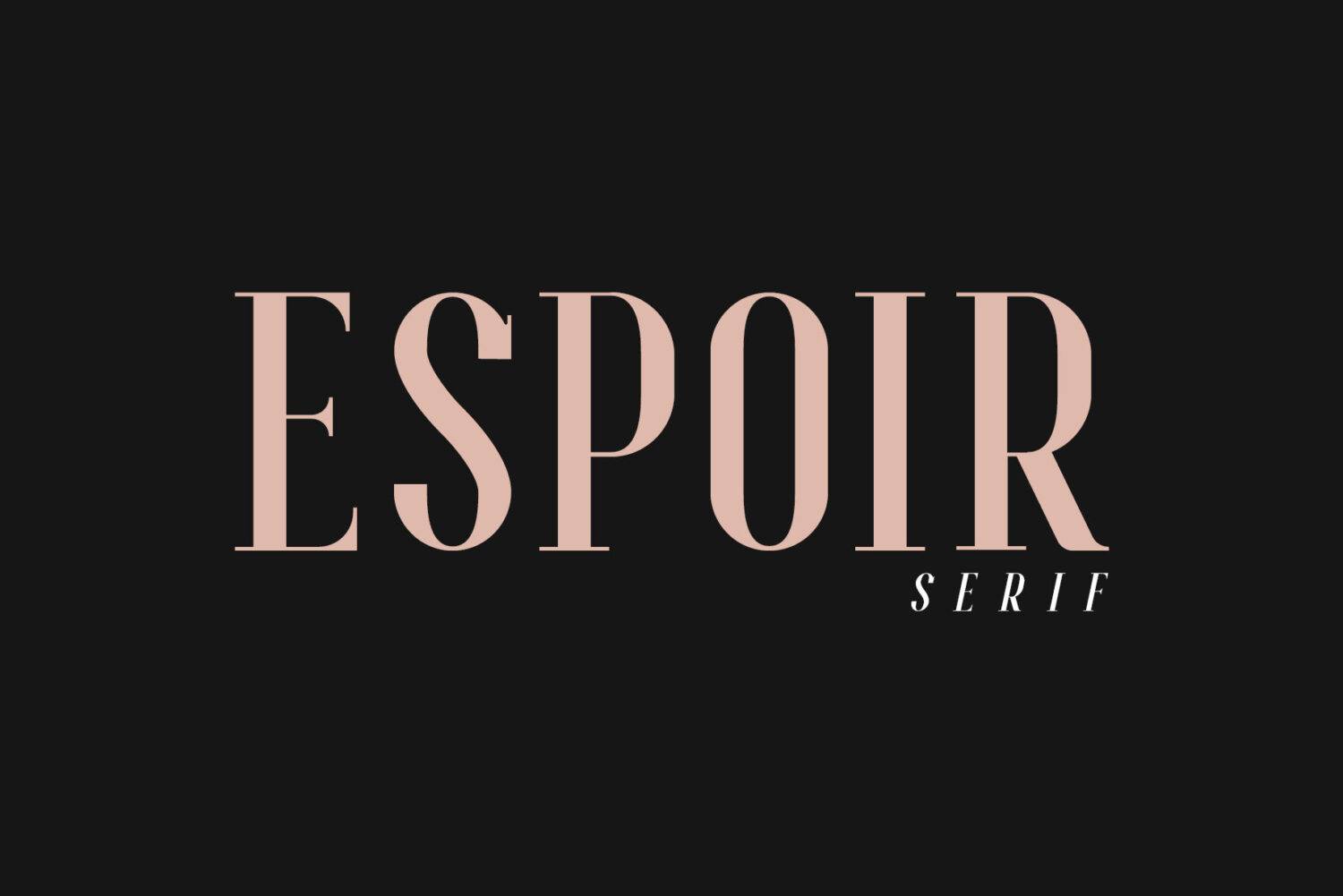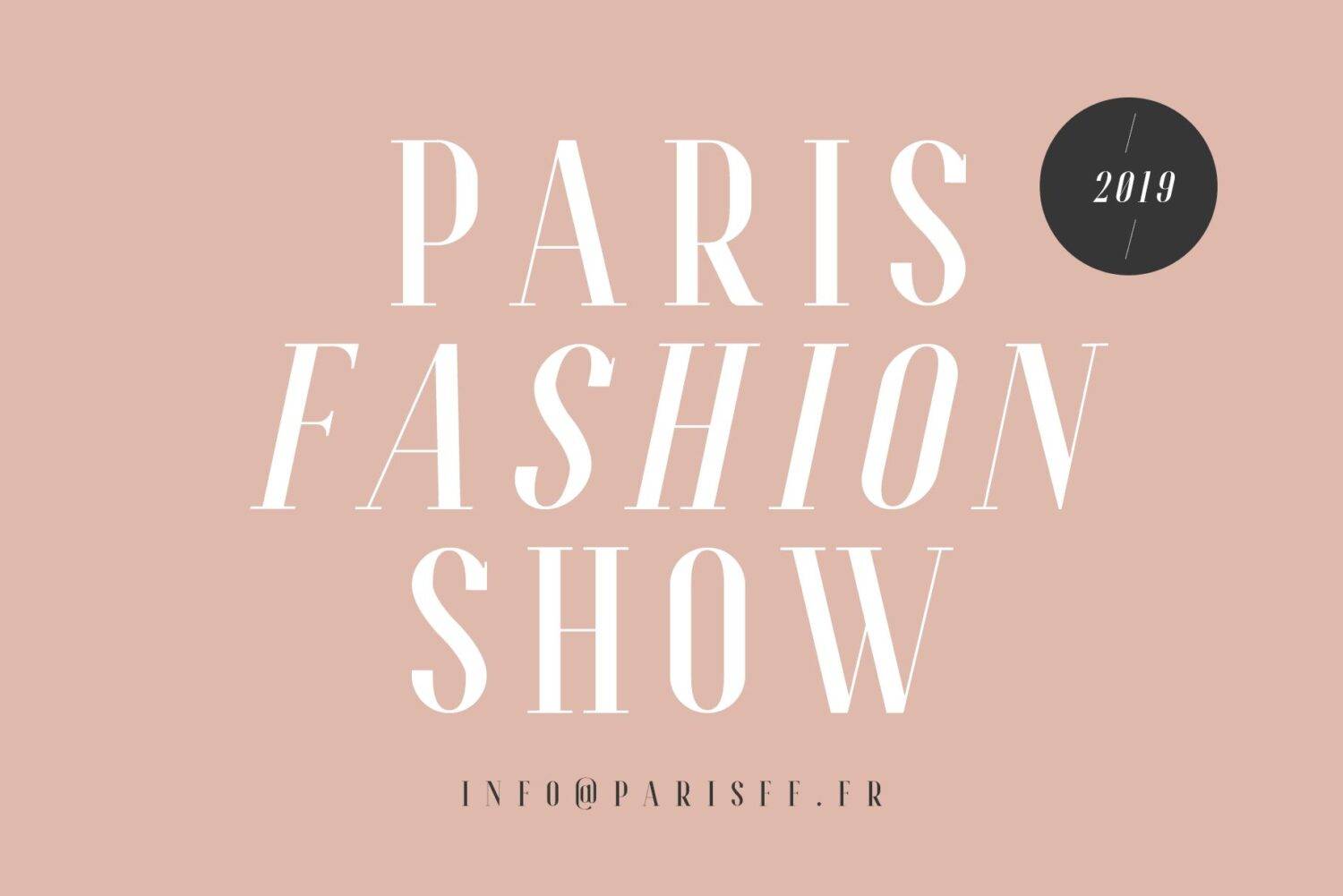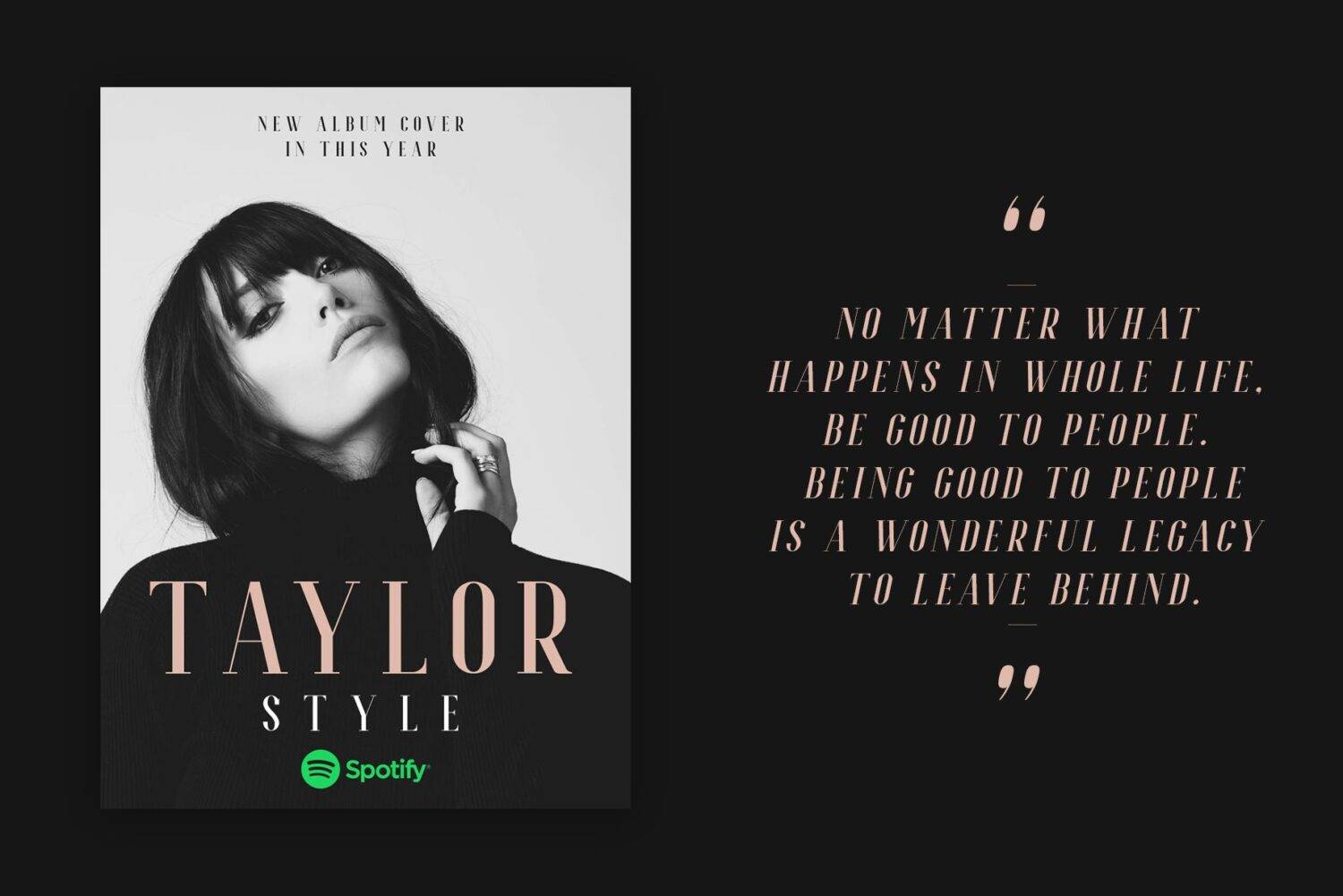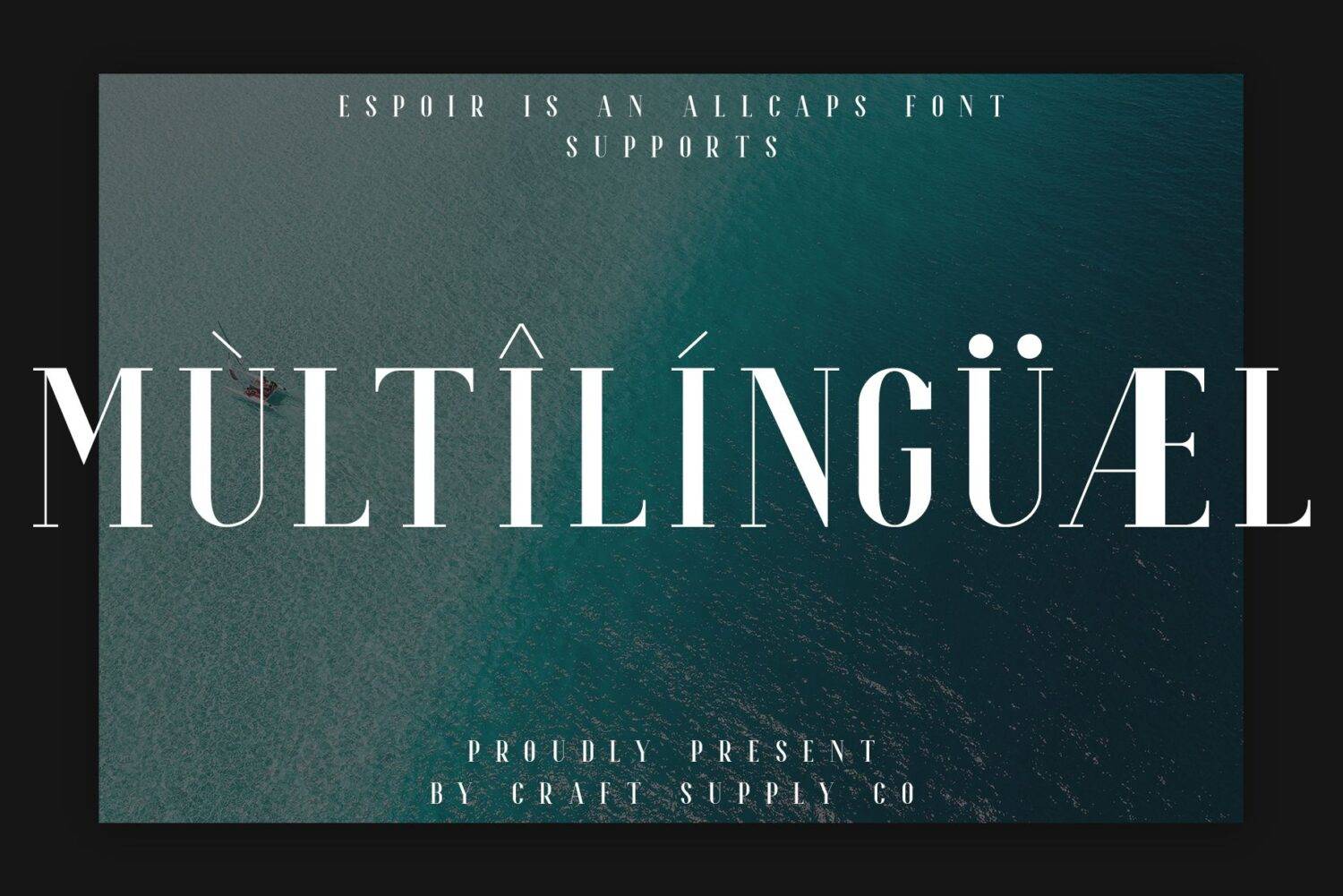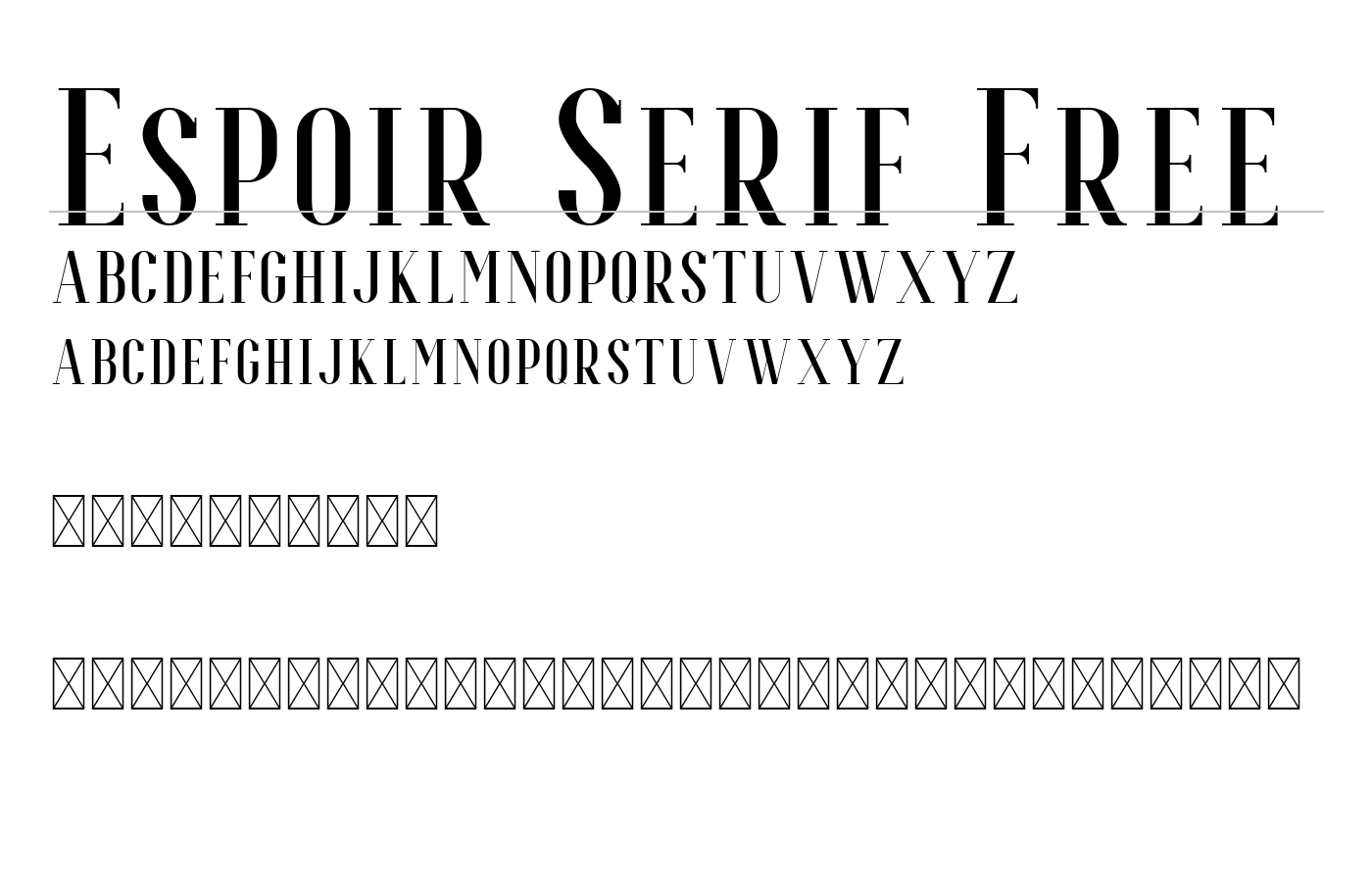
Espoir Serif is an elegant, condensed serif font with high contrast between thick and thin strokes, featuring tall, narrow letterforms that give it a sophisticated and refined appearance. Its sharp, unbracketed serifs and all-uppercase style make it ideal for luxury branding, fashion headlines, and editorial use where a modern, stylish statement is desired. This font works best in large sizes for striking logos, posters, and magazine titles, delivering a timeless yet contemporary aura.
Espoir Serif Font
About Espoir Serif Font